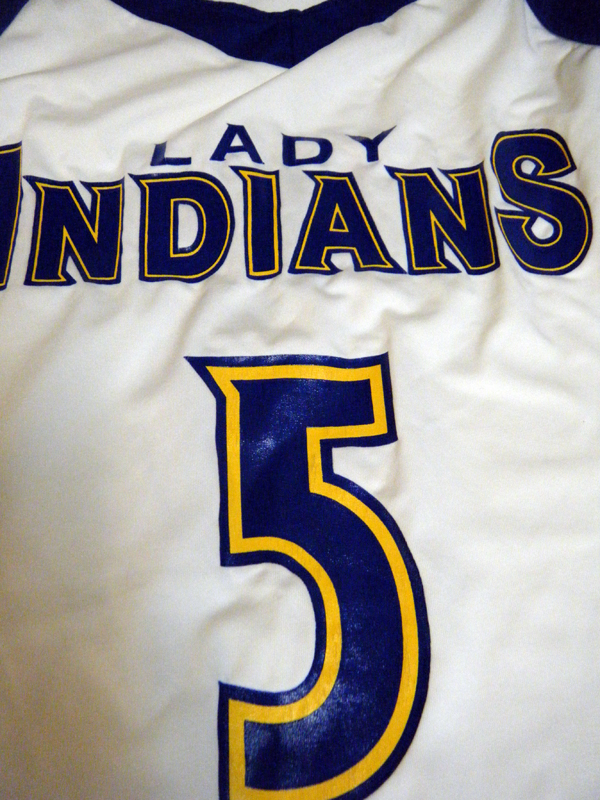
Font ID request
Is this a font? Or were the serifs added to an existing font?
Number looks like Bodega (with point added). The rest is not unique enough to know what it started out as. Could be Helvetica, Franklin or Arial